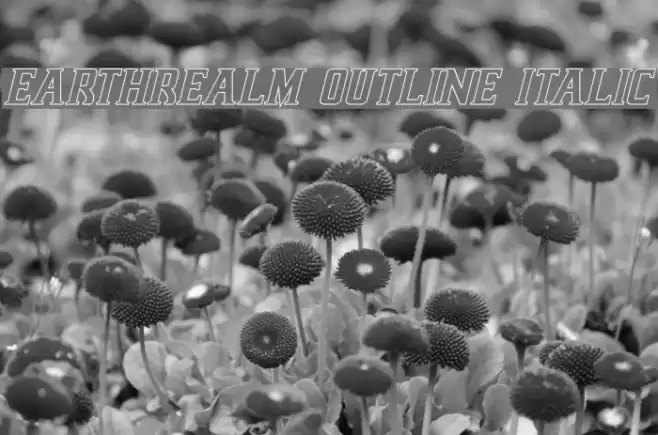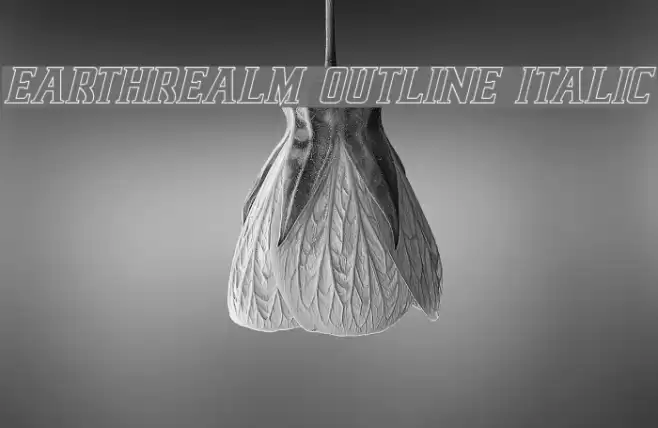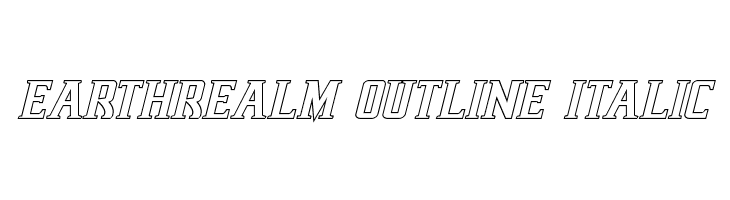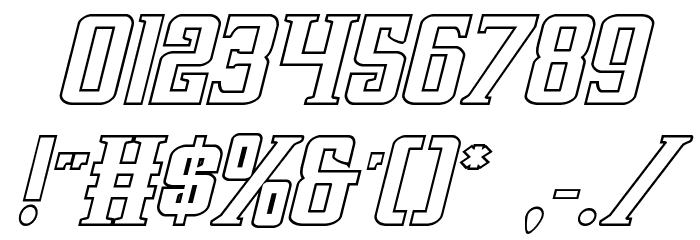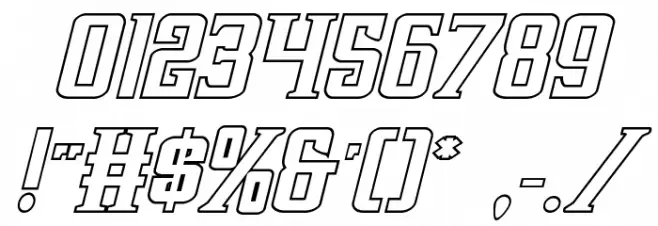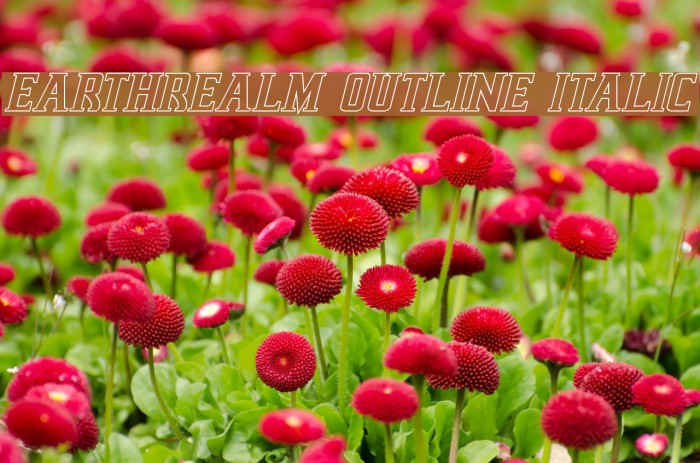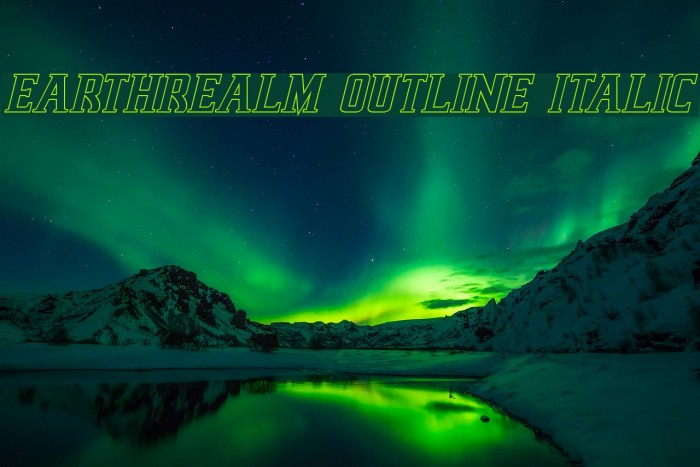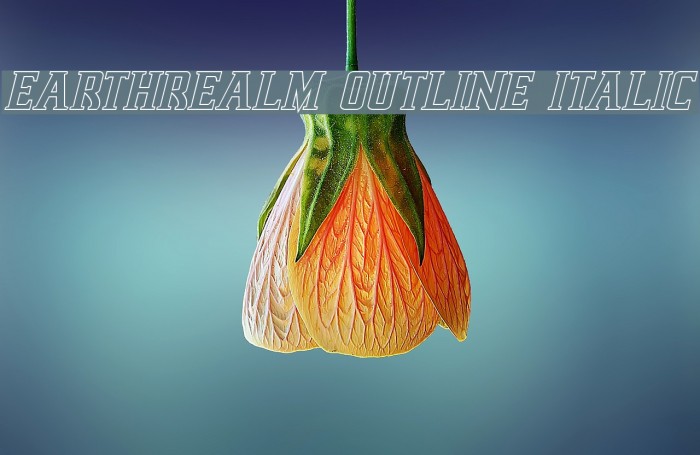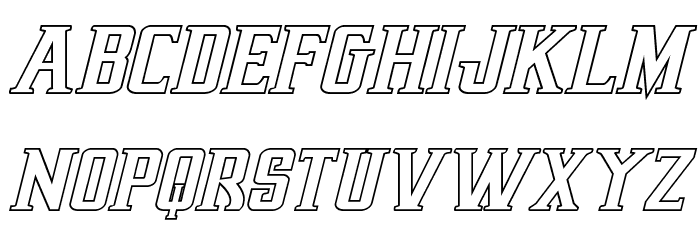
Earthrealm Outline Italic
This font features a bold, outlined style with a distinct italic slant, giving it a dynamic and energetic appearance. The uppercase and lowercase letters maintain a consistent structure, with sharp angles and clean lines that enhance readability. The numerals and special characters are designed to match the overall aesthetic, providing a cohesive look across all elements. The outline effect adds depth, making it suitable for eye-catching designs. Its geometric shapes and uniform stroke widths contribute to a modern and stylish feel, perfect for projects that require a bold statement.
A bold, outlined italic font with sharp angles and a modern style.
- Proposed Projects: Ideal for posters, logos, headlines, and branding materials that need a striking and modern look.